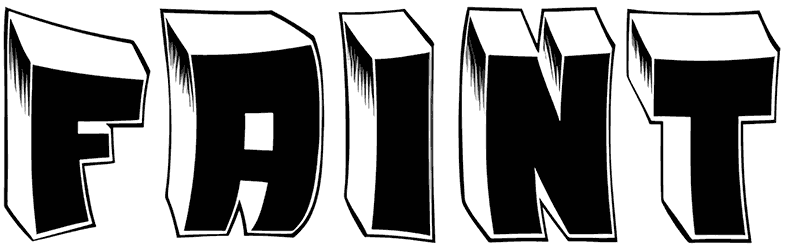
Faint Font
Faint is a magical comic font that comes with a 3D style and is insanely perfect for a wide set of graphic content ranging from illustrations, logos, flyers, or covers, to stickers.
The good news about this all-caps fancy font is that it comes with two distinctive styles, thus widening your selection range and making up for the lack of numbers. Needless to say that it leads to a sense of jauntiness, dynamic, or drama.